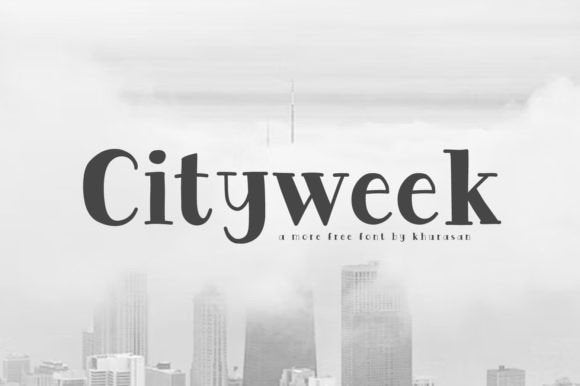
Cityweek - Modern Urban Sans Font for Fas
Cityweek is a serif typeface designed with clarity and style in mind — clean letterforms, balanced serifs, and a polished feel make it a strong choice for branding, editorial, packaging, and decorative typography. Its design gives a modern yet classic serif voice to your projects, combining readability with a refined aesthetic that stands out without being overly ornate.
Whether you are designing product packaging, flyers, logos, or social media graphics, Cityweek offers a versatile serif foundation that elevates text with a sophisticated look. It works well for display‑size headings as well as for short to medium‑length text when clarity and elegance are desired.
- Brand logos and wordmarks
- Product packaging, labels, tags, and merchandise design
- Business cards, letterheads, and stationery items
- Flyers, posters, banners, marketing materials
- Editorial layouts, book covers, magazine spreads
- Social‑media graphics, web headers, digital ads (with webfont conversion if allowed)
- “Regular” style (single weight) — suitable for display, headings, titles
- Latin character set including letters, numbers, punctuation (basic glyph set) — enough for most design uses
- Elegant serif aesthetic — gives a polished, professional look to branding, packaging, and print work
- Flexible across design types — works for both packaging/branding and editorial/print designs
- Readability and clarity — letterforms are clean and sharp, making text legible even at small or medium sizes
- Neutral yet stylish — suitable for many themes: modern, minimalist, classic, boutique, or professional
Q: Is Cityweek suitable for body text or long paragraphs?
A: It can be used for shorter text or medium‑length copy, but it performs best as a display or heading font due to its serif design and single weight focus. -
| Feature | Cityweek | Generic Serif Font | Generic Sans‑Serif Display Font |
| Font Style | Modern serif — clean, elegant serif display font | Classic serif — more traditional, possibly with multiple weights and body‑text suitability | Sans‑serif display — clean, minimal, neutral, good for modern or digital layout |
| Best Use | Logos, packaging, headlines, branding, print/digital design | Body text, editorial, print material, books or long copy | Web headings, minimal branding, modern UI, clean posters |
| Readability (body / small text) | Moderate — works, but best as display or short copy text | High — designed for long text readability and print comfort | High — readable on screen, good for UI and headings; weight varies |
| Visual Vibe | Elegant, refined, modern‑classic, versatile | Traditional, timeless, formal or literary | Modern, minimal, neutral, versatile |